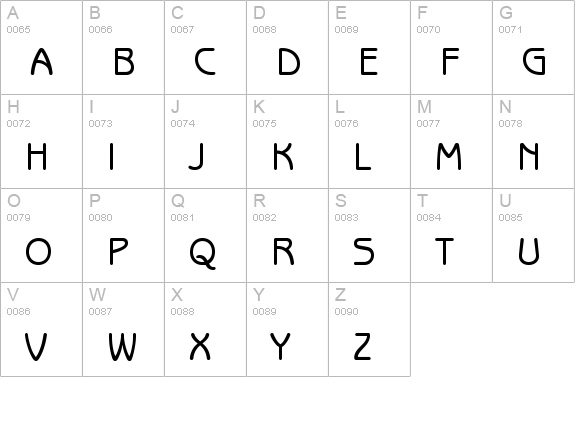
BenguiatGothicEF-Medium is a balanced, medium-weight variant in the BenguiatGothicEF typeface family \xE2\x80\x94 well suited to sub-headlines, navigation, and balanced editorial work.
BenguiatGothicEF-Medium font is a sleek and modern typeface that exudes a sense of sophistication and professionalism. Its clean lines and balanced proportions make it perfect for a wide range of design projects, from branding to editorial layouts. This versatile font is ideal for creating eye-catching headlines, signage, and logos that demand attention. With its medium weight, BenguiatGothicEF-Medium strikes the perfect balance between readability and impact, making it a go-to choice for designers looking to make a statement. And the best part? BenguiatGothicEF-Medium font is available for free download at FontsMarket.com. So whether you're working on a personal project or a client commission, you can easily access this high-quality font without breaking the bank. Don't miss out on the opportunity to elevate your designs with BenguiatGothicEF-Medium font today!